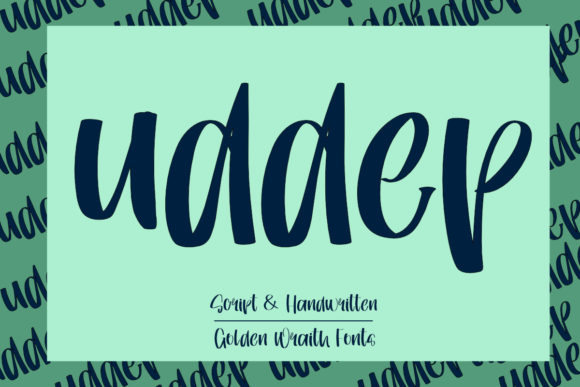
Uddep Font
About Uddep Font
Introducing “Uddep,” a delicately crafted handwritten typeface that embodies grace and fluidity. With its lovely and well-balanced characters, Uddep is designed to complement a wide range of creative projects, adding a touch of elegance to your most imaginative ideas. Incorporate Uddep into your designs and witness how it breathes life into your creative vision.
The charm of Uddep lies in its delicate and flowing nature. Each character is meticulously designed to strike a harmonious balance, creating a typeface that exudes sophistication and style. The graceful strokes of Uddep bring a sense of refinement to your designs, making it a versatile choice for various creative applications.
Uddep’s versatility allows it to seamlessly enhance a broad spectrum of designs. Whether you’re working on invitations, branding, packaging, or any other creative project, Uddep adapts effortlessly to different contexts. Its fluid and well-balanced characters ensure that it complements and elevates your creative ideas.
Incorporate Uddep into your most creative endeavors, and you’ll discover how this handwritten typeface can add a unique and charming touch to your designs. From elegant invitations to artistic branding, Uddep brings a sense of delicacy that enhances the visual appeal of your projects.
Witness your ideas come to life as Uddep transforms ordinary text into an expression of grace and creativity. Embrace the delicate, flowing nature of Uddep, and let it become an integral part of your design toolkit, bringing a touch of sophistication to every project it graces.